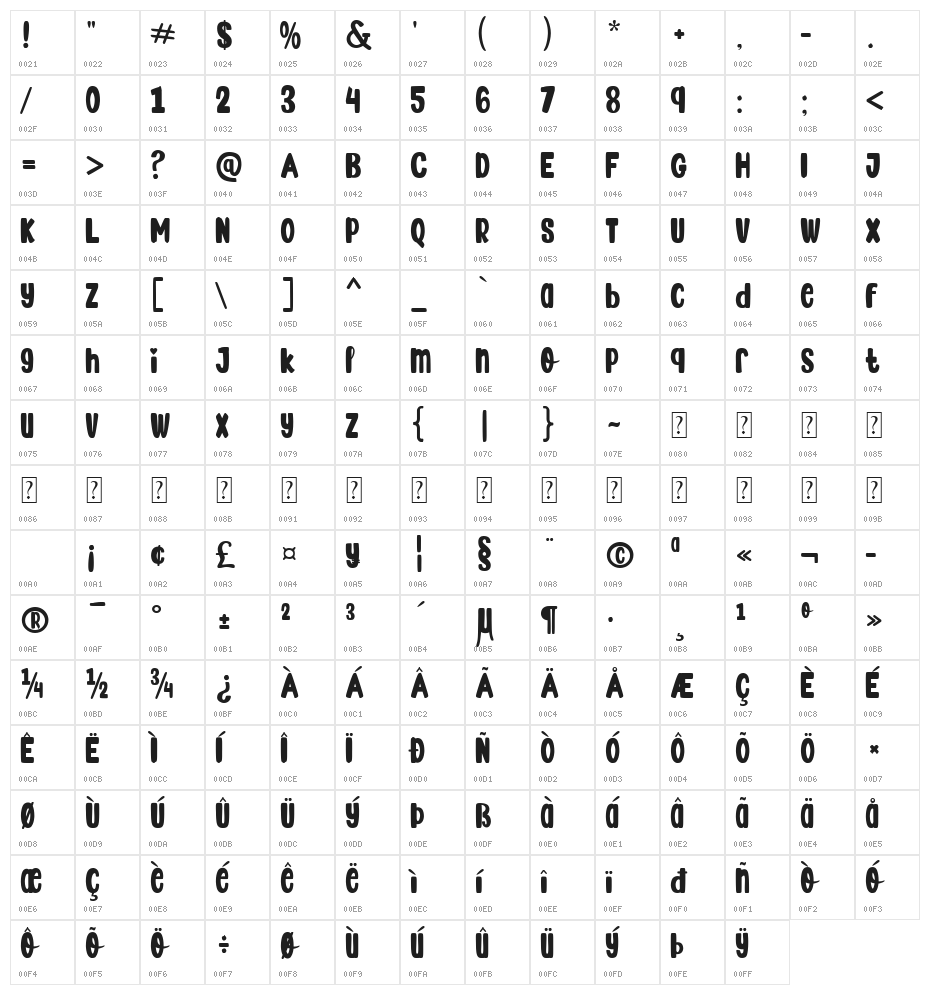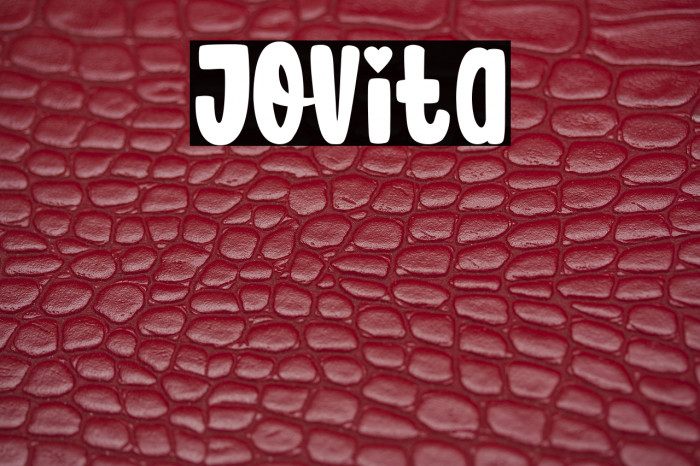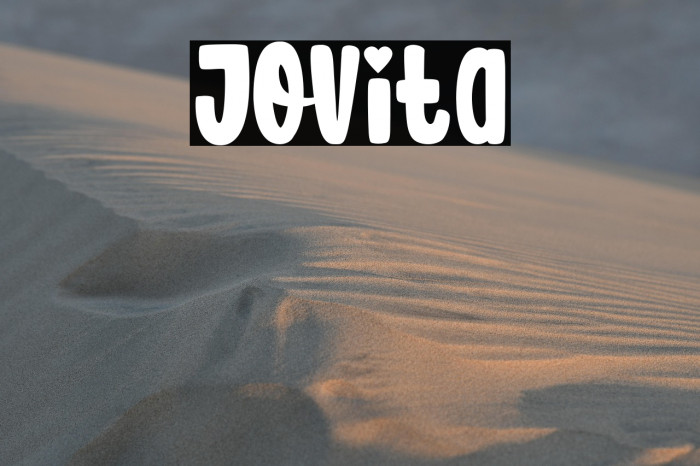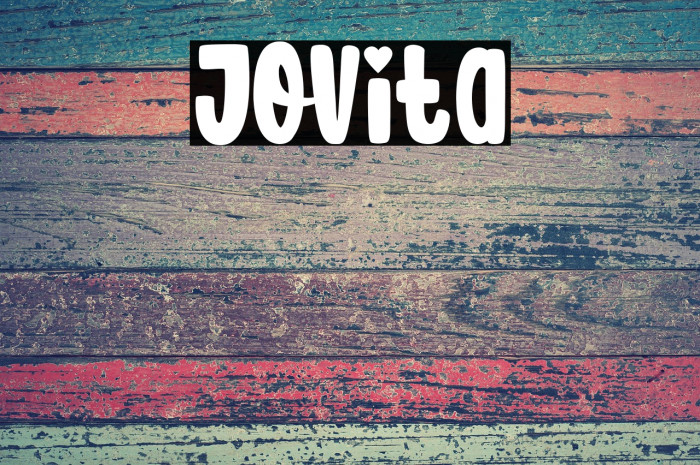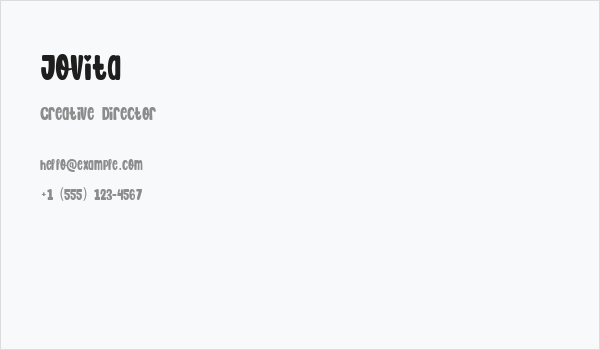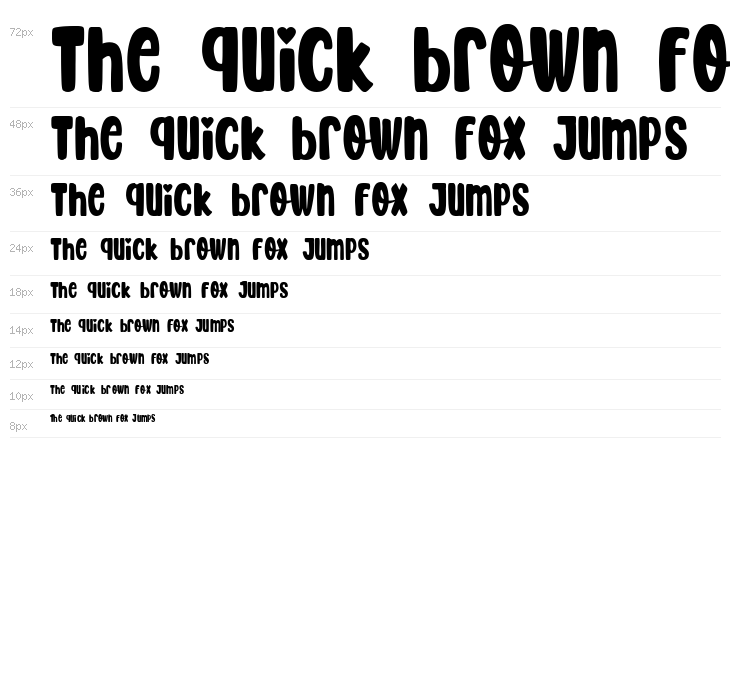
Jovita Font
Jovita Description
This font exhibits a playful and bold style with thick, rounded strokes that give it a friendly and approachable appearance. The characters are uniformly bold, with a slightly condensed width that enhances its compact and impactful look. The uppercase and lowercase letters maintain a consistent style, with some unique features such as the heart-shaped dot on the lowercase 'i'. The numerals and special characters follow the same bold and rounded design, ensuring uniformity across all glyphs. Its distinctive style makes it ideal for projects that require a fun and engaging visual element.
| Proposed Projects | Ideal for children's books, playful branding, posters, and social media graphics. |